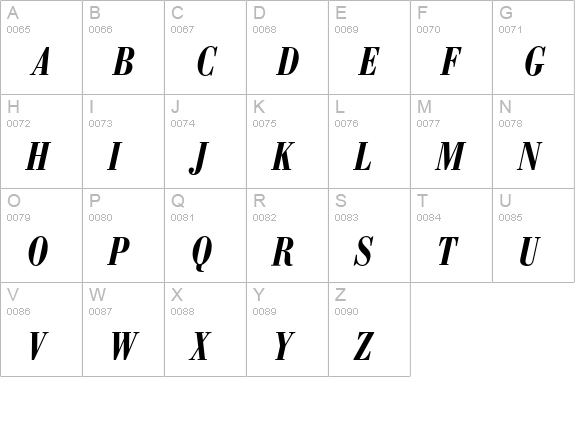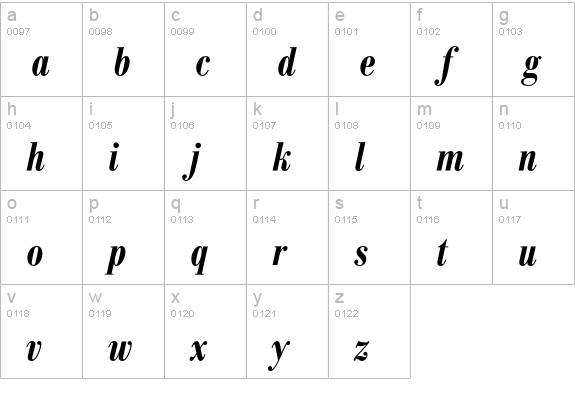
Bodoni Berthold Condensed BQ Medium Italic Font Details
Bodoni Berthold Condensed BQ Medium Italic is a balanced, medium-weight, condensed-width, italic variant in the Bodoni typeface family \xE2\x80\x94 well suited to sub-headlines, navigation, and balanced editorial work.
Bodoni Berthold Condensed BQ Medium Italic font exudes elegance and sophistication with its sleek design and precise strokes. This font is ideal for creating modern and stylish designs that demand attention. The medium weight adds a touch of boldness, while the italic style conveys a sense of movement and fluidity. Best of all, Bodoni Berthold Condensed BQ Medium Italic font is available for free download at FontsMarket.com. Whether you're working on a professional project or a personal creative endeavor, this font will elevate your design with its timeless appeal. Don't miss out on the opportunity to add this versatile and striking font to your collection today.